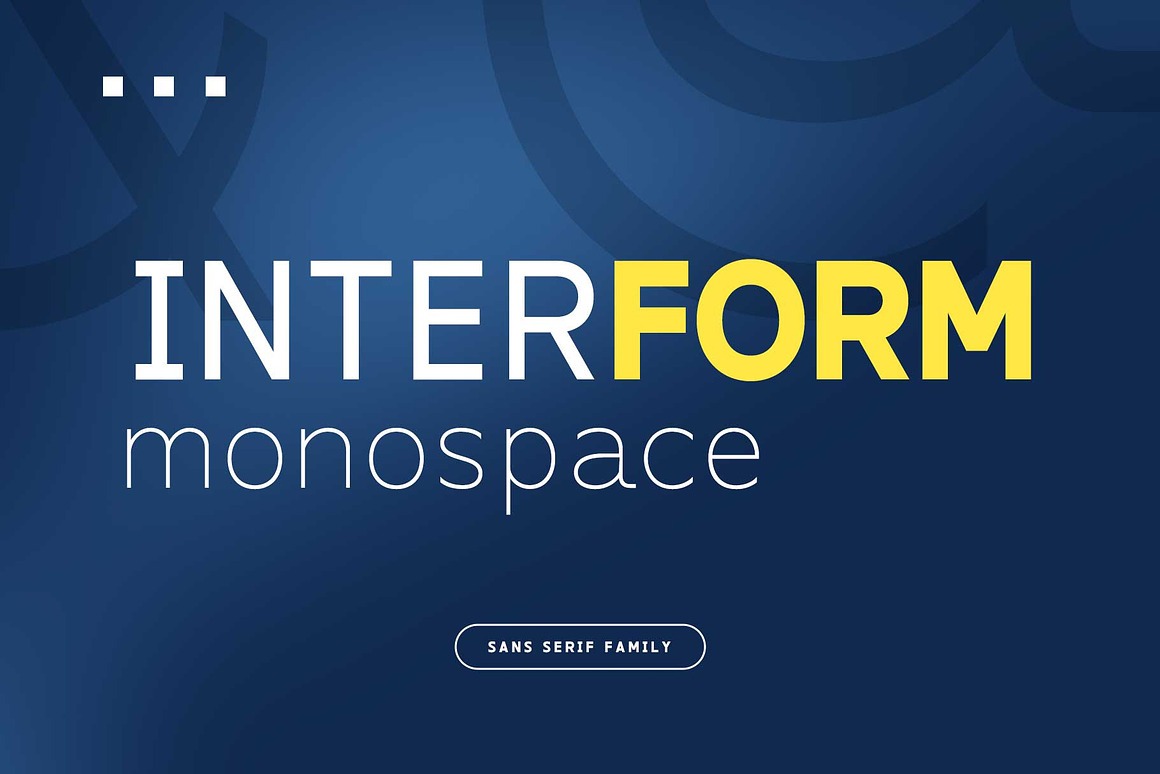
Interform Font
About Interform
Interform is a modern monospaced typeface, built with strong letterforms and an industrial aesthetic. It is designed to maintain readability at both small and large sizes. Interform is available in five weights—Light, Regular, Medium, SemiBold and Bold—to suit a wide range of design needs.